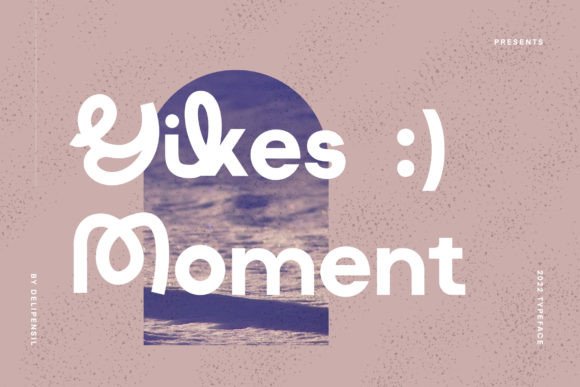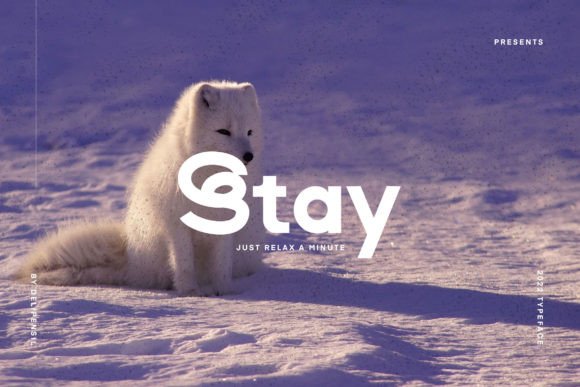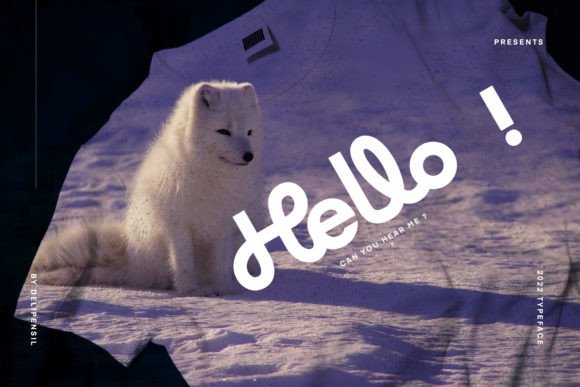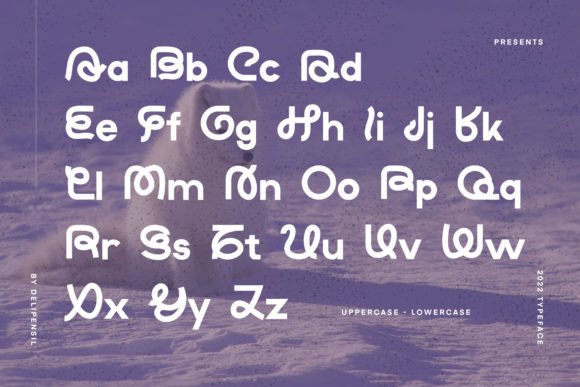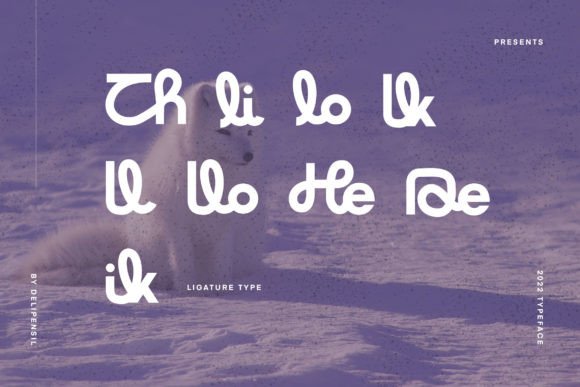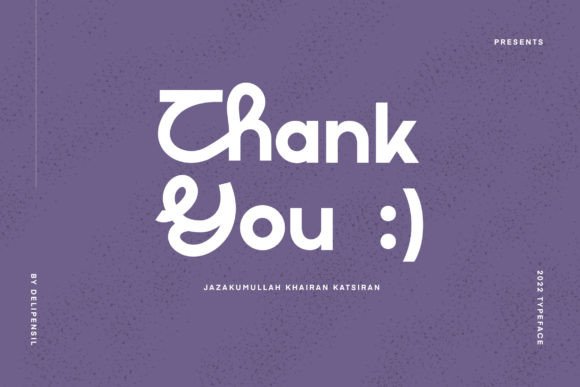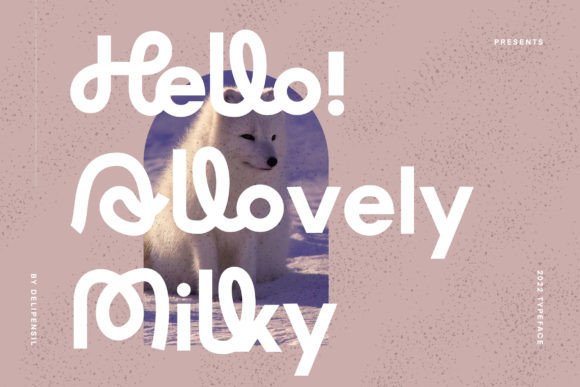
Discover the Elegance of Allovely Font: Elevate Your Design Projects
Are you on the hunt for a font that exudes sophistication, cleanliness, and a touch of classic charm? Look no further than the Allovely Font. This stunning sans serif font is designed to bring a level of elegance and refinement to your design projects, making them truly unforgettable. In this article, we’ll delve into the features, benefits, and creative possibilities of the Allovely Font, and explore how it can become your go-to choice for a wide range of design applications.
The Allovely Font: A Perfect Blend of Style and Versatility
Allovely is a beautiful sans serif font that strikes the perfect balance between clean and classic, with a sophisticated twist. Its sleek lines, precise curves, and well-balanced proportions make it an excellent choice for a variety of design projects. Whether you’re working on a logo, headline, book cover, or magazine, Allovely is sure to make your project stand out from the crowd.
Key Features of Allovely Font
- Clean and Classic Design: Allovely boasts a clean and classic sans serif design that ensures clarity and readability, making it perfect for body text and headlines.
- Sophisticated Touch: The font’s sophisticated details add a level of elegance and refinement, ideal for creating a luxurious feel in your designs.
- Versatility: Allovely is incredibly versatile, suitable for a wide range of design projects, from branding and advertising to publishing and digital media.
- Ease of Use: The font is easy to read and works well in various sizes, making it a practical choice for both print and digital applications.
Creative Applications of Allovely Font
The versatility of Allovely Font makes it an excellent choice for numerous design applications. Here are some creative ways to use Allovely:
- Logo Design: Create a lasting impression with a logo that features the elegant and sophisticated Allovely Font.
- Headlines and Titles: Use Allovely to craft headlines and titles that capture attention and convey a sense of luxury and refinement.
- Book and Magazine Covers: Elevate your book or magazine covers with Allovely, making them stand out on digital platforms and newsstands.
- Branding and Advertising: Incorporate Allovely into your branding and advertising materials to communicate a sense of sophistication and class.
- Digital Media: Use Allovely in your digital media projects, such as website designs, social media graphics, and presentations, to add a touch of elegance.
Why Choose Allovely Font?
- Unique and Memorable: Allovely’s distinctive style ensures that your designs will be unique and memorable.
- High Readability: The font’s clean design and well-spaced letters ensure high readability, even at smaller sizes.
- Cross-Platform Compatibility: Allovely works well across different platforms and devices, ensuring consistency in your design.
- Easy to Pair: Allovely can be easily paired with other fonts to create a cohesive and visually appealing design.